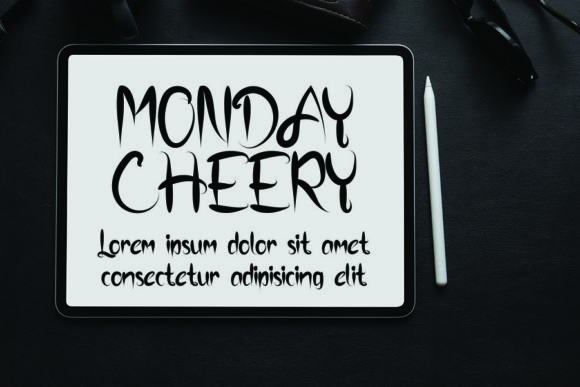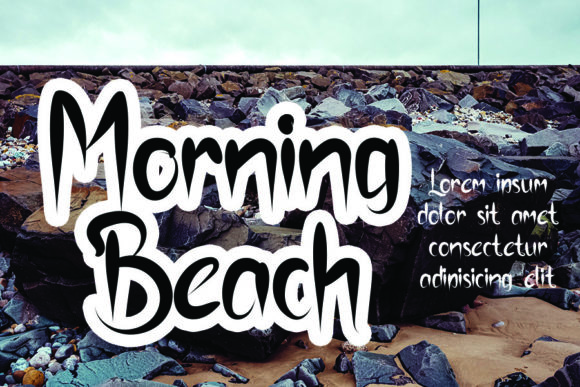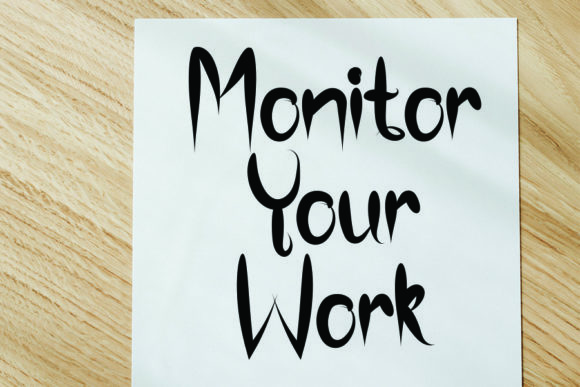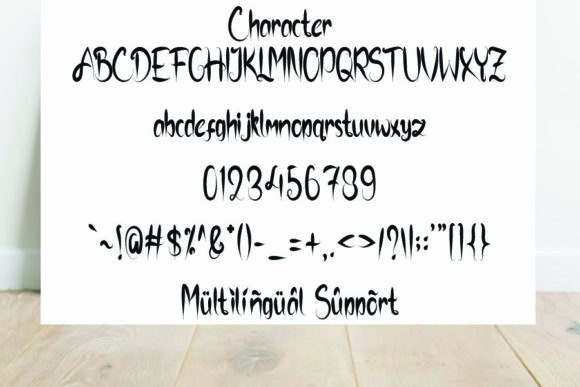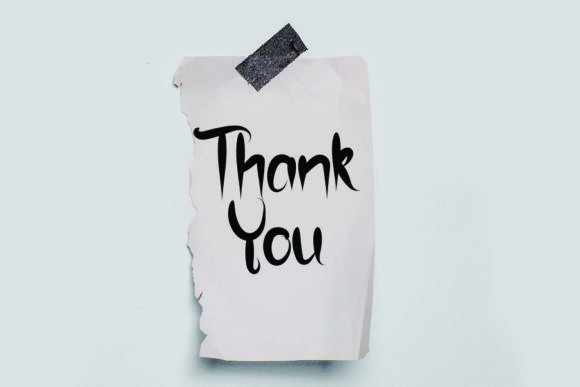
Snazzy Small Font
About Snazzy Small Font
Snazzy Small is a cool, quirky and uniquely designed handwritten font, crafted to offer your headlines and logotype projects a stylish touch. This font reads as relaxed, friendly, and dynamic and can add tons of fun character to your designs.